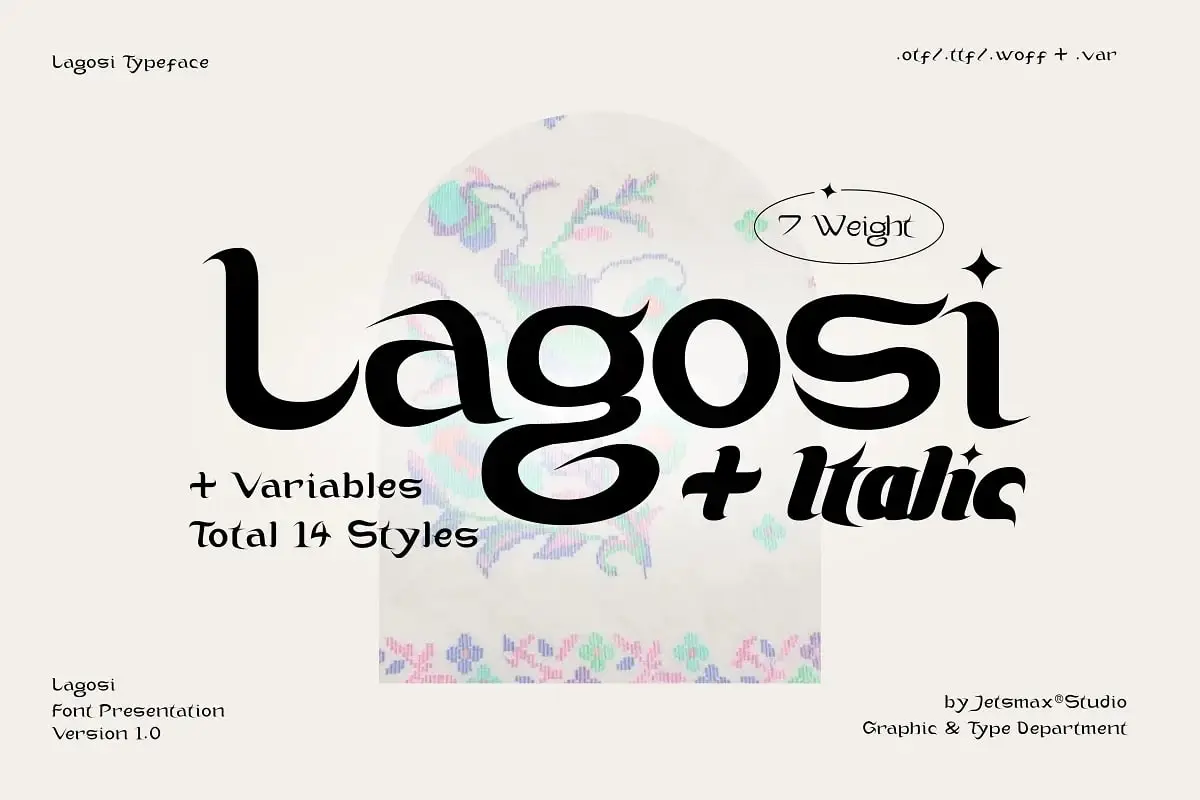
Hey there, creative soul! β¨ Are you ready to dive into a treasure trove of typography and design goodies? The brushespack Collection Part 142 is here to blow your mind, featuring an amazing lineup of 20 fonts and digital assets that range from playful and whimsical to sleek and sophisticated. Whether you’re working on a branding project, a funky poster, or just want to add some flair to your digital art, this collection has something special just for you. π¨
Why Use These Design Assets & Fonts?
Honestly, great design starts with the right tools. Using unique, high-quality fonts and assets instantly elevates your work from “meh” to “WOW!” π These picks offer incredible versatilityβthink eyecatching logos, gorgeous headlines, and seamless integrations for both print and web. Plus, with multiple weights and styles, you get the flexibility to create a cohesive visual identity without breaking a sweat. π
Top 20 Design Picks
Menovy-Free Font
Who doesnβt love a freebie that looks this good? The Menovy-Free Font is a modern sans-serif stunner with super clean lines, making it perfect for everything from minimalist branding to sleek app interfaces. β¨ Itβs versatile, legible, and absolutely ready to elevate your next project!
Monfem Β©177 Studio 2020 Damelev
Get ready to add a touch of elegance to your designs! The Monfem asset is crafted with incredible attention to detail and is super easy to customize. Whether you’re making social media graphics or wedding invitations, this one will make your work shine. πΈ
Lagosi Typeface
Calling all lovers of vintage aesthetics! π°οΈ The Lagosi Typeface features stunning, unique letterforms with elegant curves that scream sophistication. Perfect for posters, logos, and any project that needs a classic yet fresh vibe. Youβre going to adore this one!
Lanecar Headline By Viactiontype
This isnβt just a fontβitβs a statement! ππ¨ Lanecar Headline blends geometric shapes with elegant lines for a modern, bold look. Ideal for headlines that need to grab attention without sacrificing style. Multiple weights mean youβve got tons of creative freedom!
Letterena Studios Hustle Actlife 2 Styles
Double the styles, double the fun! π This font family offers two unique looks, making it a dream for branding and logos. The high-quality vector format ensures your designs stay crisp and clean, no matter the size. Get ready to hustle with style!
Magestic.Std-Evandale Font Extended Latin
Wow, just wow! β¨ This typeface beautifully blends classic charm with modern elegance. With Regular, Bold, and Italic styles plus multiple weights, itβs a total workhorse for any design project. The Extended Latin support is a huge bonus for international creatives!
Madcloud Font By Teenage Foundry
Playful, modern, and totally unique! π₯οΈ The Madcloud Font is perfect for branding, logos, and web designs that need a touch of whimsy. Available in multiple weights and OTF formats, itβs as versatile as it is fun. Your projects are about to get a major personality boost!
Keithlar Display Font
Need a bold statement? This display font delivers! π₯ Keithlar is all about striking, distinctive letterforms that demand attention. Multiple weights give you flexibility, making it perfect for eye-catching branding and memorable headlines.
Masanis Palmire Modern Serif Typeface
Elegance redefined! πΉ Masanis Palmire is a modern serif that feels both timeless and fresh. With multiple weights, itβs perfect for everything from luxury branding to editorial layouts. Your designs will look incredibly sophisticated and polished!
Magesar Font
Versatile, elegant, and oh-so-modern! πͺ The Magesar Font is a true all-rounder, perfect for branding, web design, and even UI projects. Its elegant curves and multiple weights give you endless possibilities to play with.
Manuscribe-Psychedelic Typeface
Letβs get groovy! πΊ This vibrant and expressive typeface is all about playful curves and bold lines. Perfect for projects that need a touch of whimsy and a whole lot of personality. Your creative work will thank you!
Magisto Font
Looking for the perfect modern typeface for branding? Magisto is beautifully crafted with elegance and readability in mind. Itβs ideal for logos, headlines, and any digital project that needs a dash of sophistication. π©
Longinus
Want high-resolution graphics that are fully customizable? Longinus is the answer! π― This versatile digital asset is perfect for branding and marketing materials. The crisp visuals and editable elements make it a true gem for creatives.